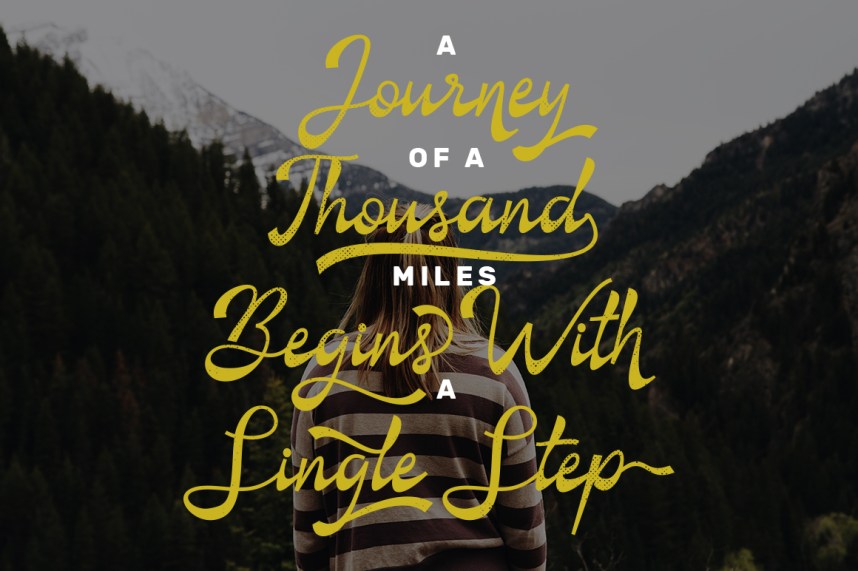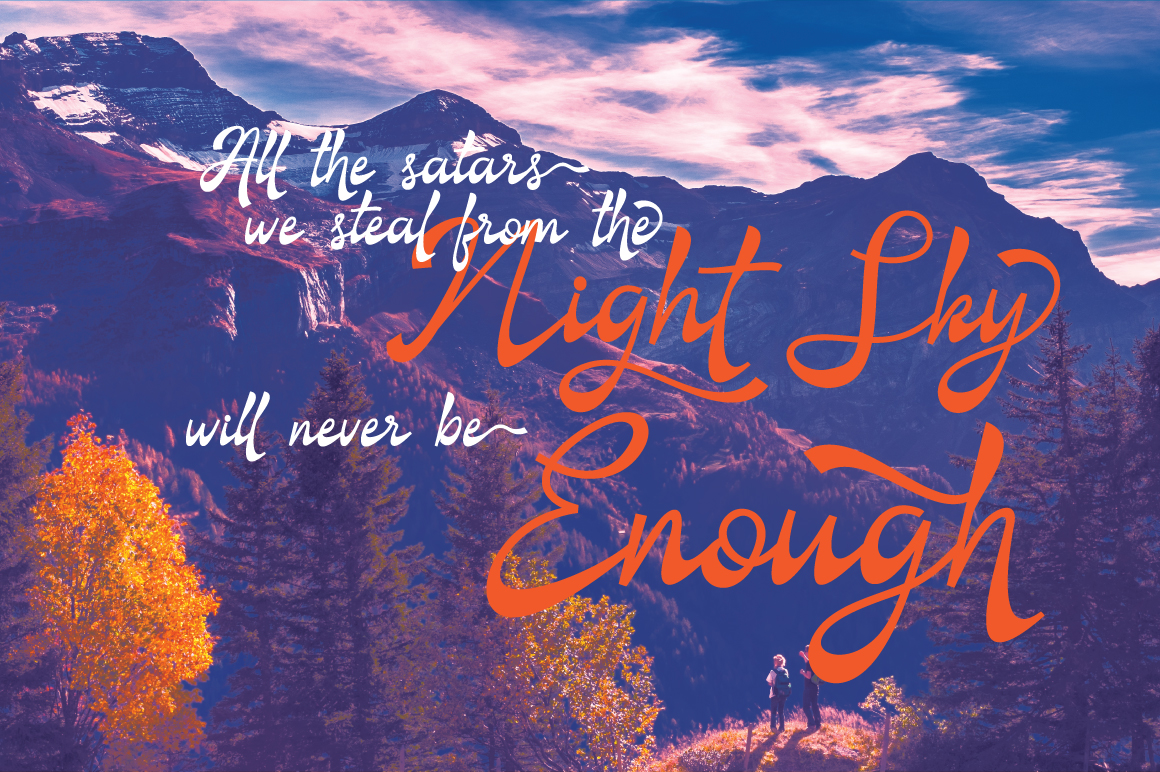
Criselda Script Free Typeface
I am very pleased to introduce a new design of Ijemrockart. Introducing Criselda Script Font! Criselda designed by Ijemrockart and shared by Pathero Studio. a very elegant font script and enjoy each letter with great joy. A script font with a fine handwriting style. the Criselda script is perfect for branding projects, home design, product packaging, business card usage, invitation cards, etc.